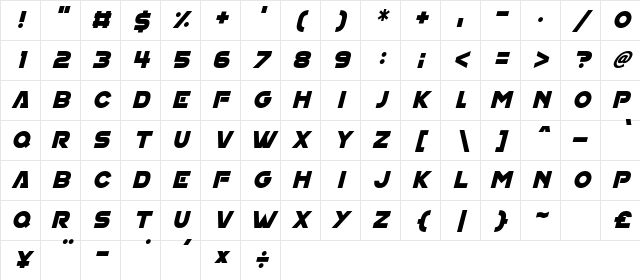
Complete House On Mars Italic glyph index. Displaying only characters natively supported by House On Mars Italic font.
House On Mars is a composed and adaptable typeface that performs quietly and consistently across a wide range of design contexts. The slanted form adds forward momentum and visual energy.